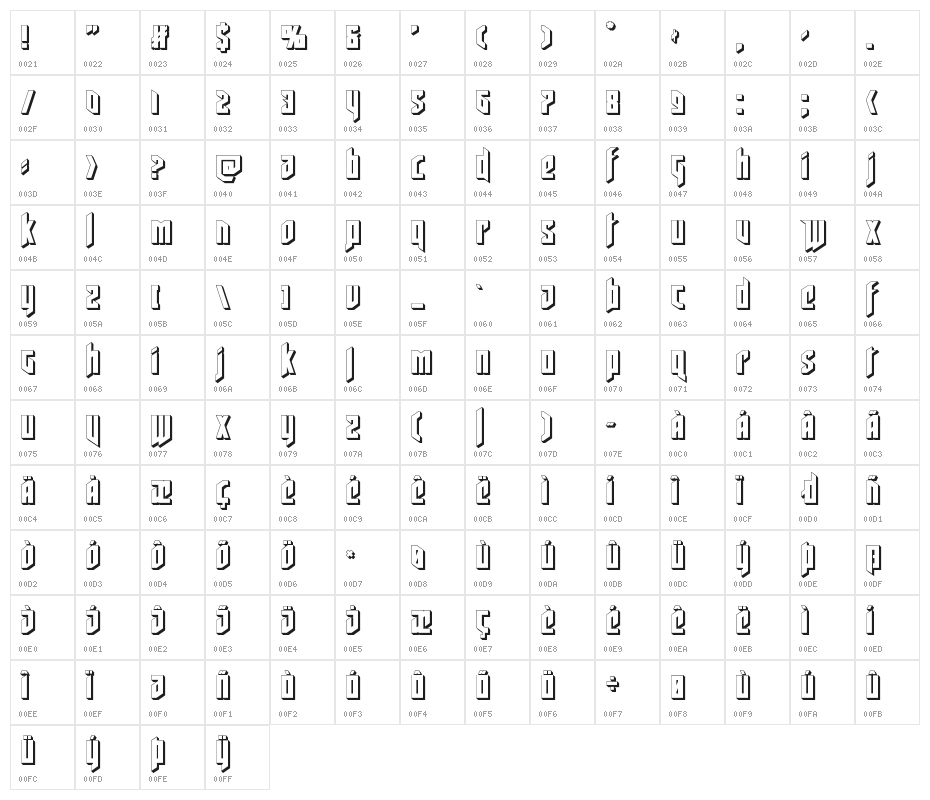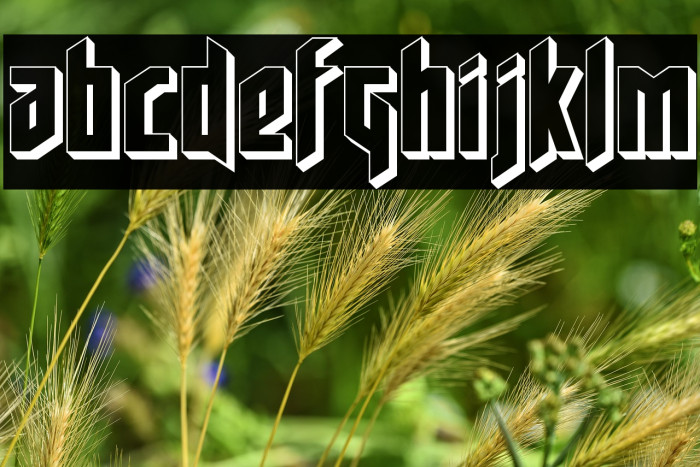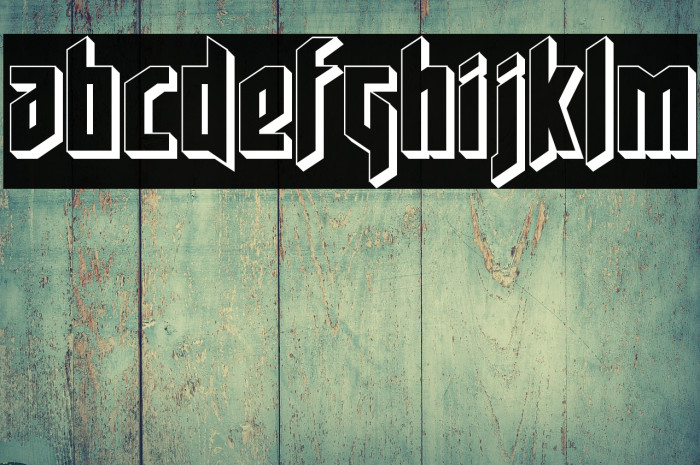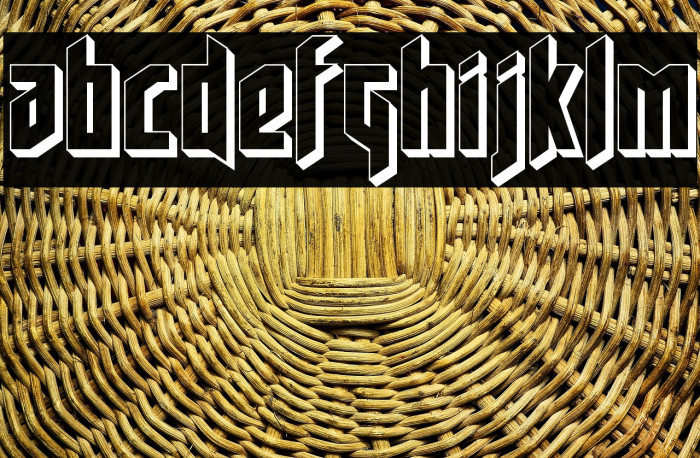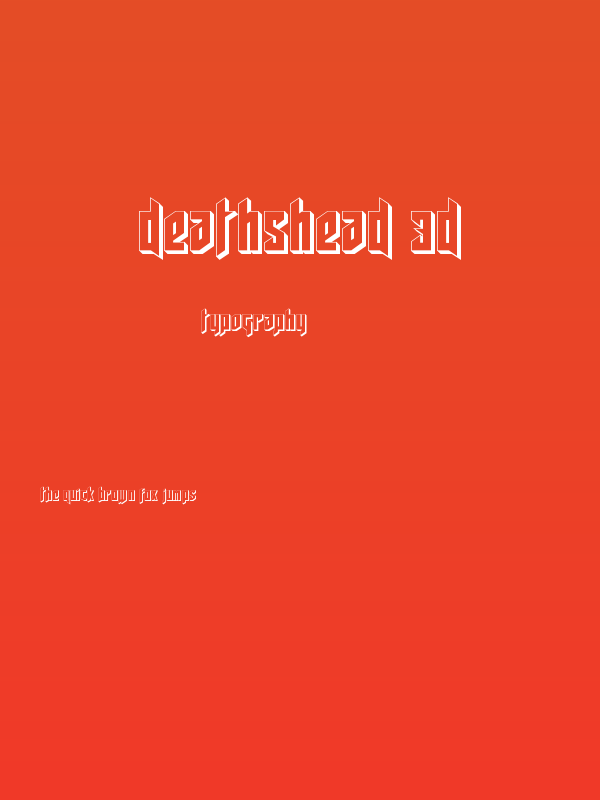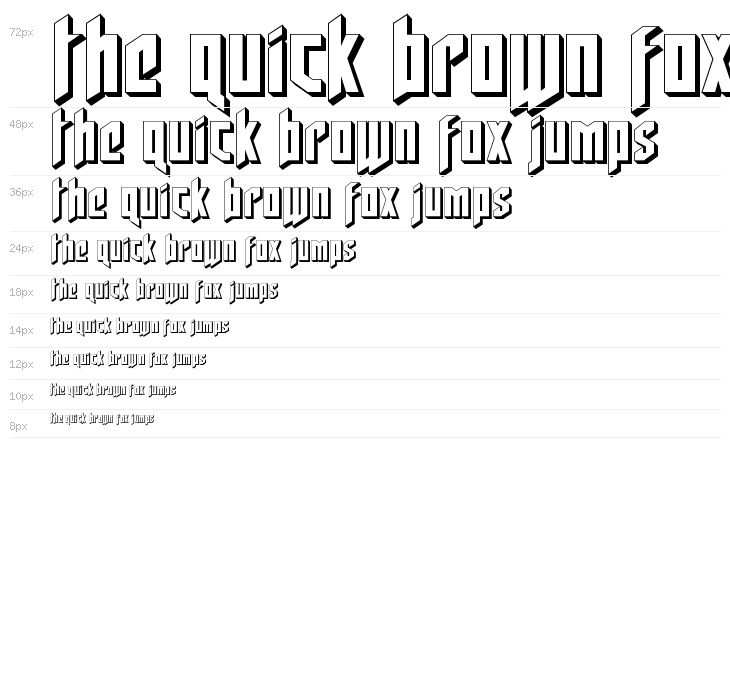
Deathshead 3D Font
Deathshead 3D Description
This font features a bold, three-dimensional style with a strong geometric influence. Each character is designed with sharp angles and a shadow effect that gives a sense of depth and solidity. The uppercase and lowercase letters maintain a consistent style, with the lowercase mirroring the uppercase in form and structure. The numbers and special characters are equally bold and follow the same design principles, ensuring uniformity across all elements. This font is striking and attention-grabbing, making it ideal for impactful designs.